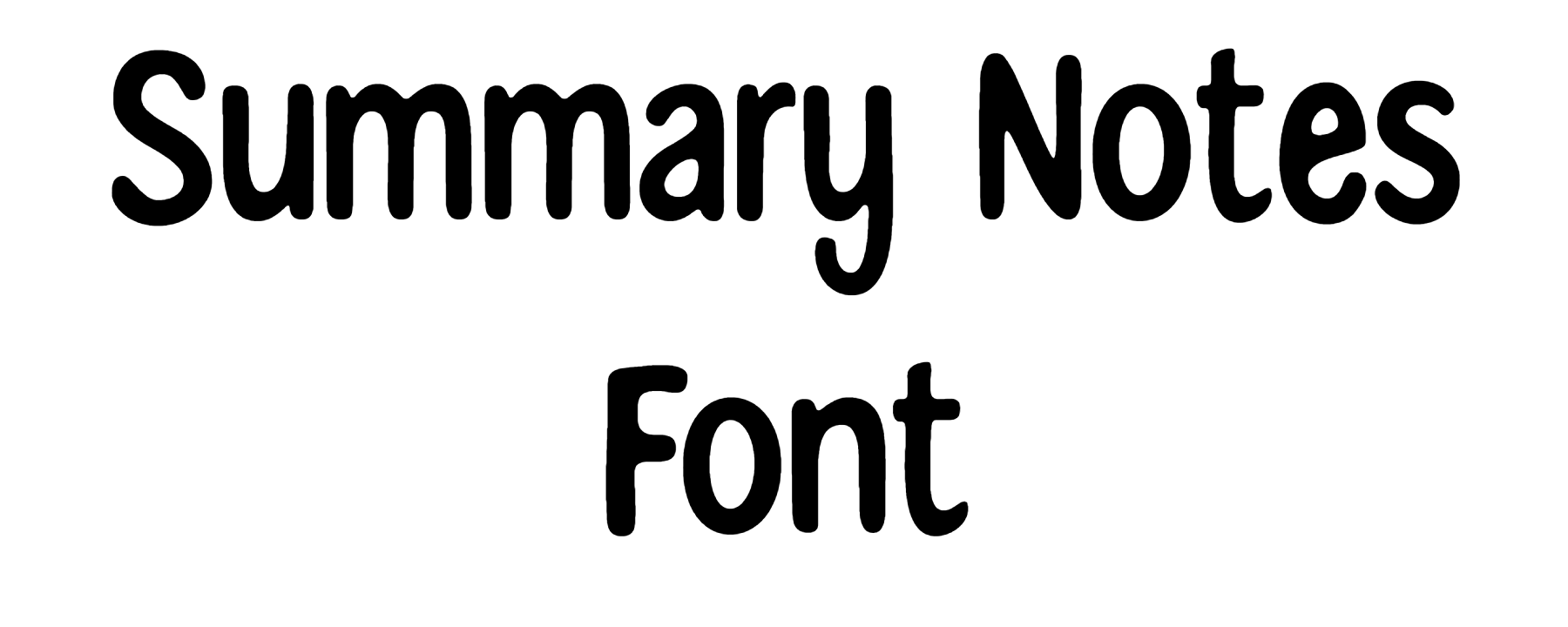
Summary Notes
Summary Notes is a fancy font made by Ali Hamidi (2021). It's a decorative display font with plenty of personality, made to grab attention. It's a free download, and you can try it with your own text in the preview above first.
What You Can Type With Summary Notes
With complete upper and lowercase letters and all ten digits, Summary Notes is ready for real wording, not just a single headline. Common punctuation such as &, !, ? and @ is included as well. It also has the accented letters you need for Spanish, French, German, Portuguese and Italian.
Ligatures and Smart Letters in Summary Notes
Where Summary Notes Works Best
Summary Notes is a natural fit for posters, logos and eye-catching headlines. Its lowercase letters are tall compared to the capitals, which keeps it readable at smaller sizes. Use it for one standout word or headline and let simpler fonts handle the rest.
Does Summary Notes have ligatures?
Yes. Summary Notes has ligatures that turn on by themselves in most design apps and browsers, so you don't need to do anything special.
Does Summary Notes support accented letters?
Yes. Summary Notes includes the accented letters needed for Spanish, French, German, Portuguese and Italian, so it works for more than just English.